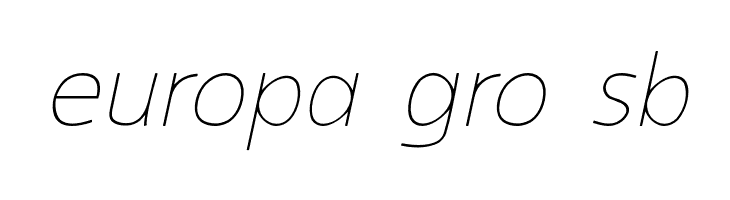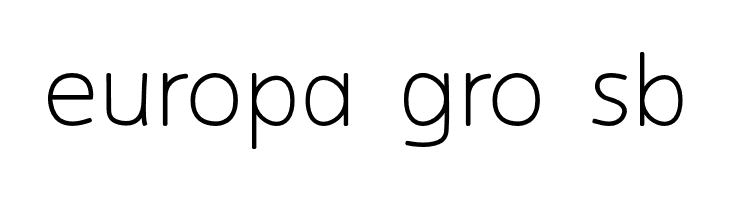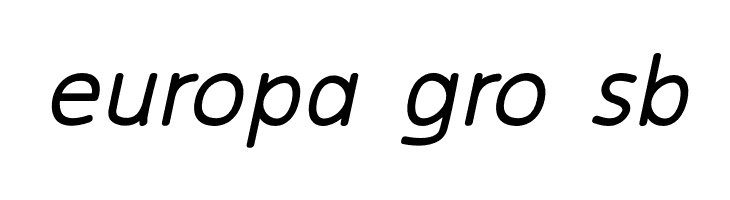
A modern, geometric font with sleek curves and consistent stroke width.
A modern, slanted font with smooth curves and a sleek, futuristic style.
A modern, playful sans-serif font with rounded characters.
A playful, rounded sans-serif font with a clean and modern look.
A playful, bold italic sans-serif font with smooth, rounded characters.
A playful, rounded font with bold, smooth curves and a friendly appearance.
A playful, bold, and italic typeface with rounded edges and smooth curves.
A sleek, modern italic font with smooth curves and consistent stroke width.
A clean, minimalist font with a light weight and friendly roundness.
A sleek, modern, and slightly italicized font with thin strokes and a minimalist design.